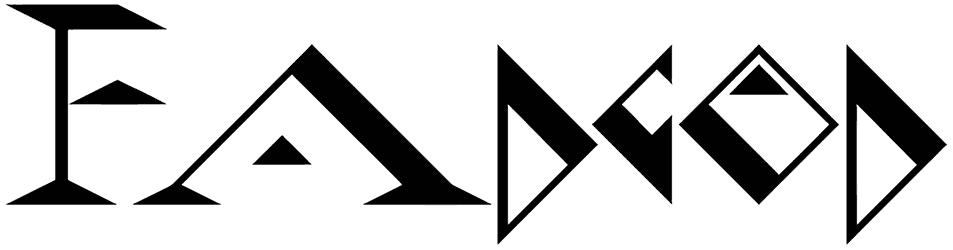
Fadgod Font
It is never too late to choose a magical alien font such as Fadgod, which has a sophisticated flow and elaborate texture. If creating a sense of exotic, mysterious, fierce, or dynamic is your main priority in designing graphic content, this all-caps triangle font can be ideal and help you achieve your goal.
Due to its unique style, it can be included in a wide set of innovative ideas ranging from web page templates, book covers, to brochures.
Fadgod is a striking, geometric typeface. Alternate caps and lowercase for a unique appearance that stands out from the rest. Most Latin-based European writing systems are supported, including the following languages. Afaan Oromo, Afar, Afrikaans, Albanian, Alsatian, Aromanian, Aymara, Bashkir (Latin), Basque, Belarusian (Latin), Bemba, Bikol, Bosnian, Breton, Cape Verdean, Creole, Catalan, Cebuano, Chamorro, Chavacano, Chichewa, Crimean Tatar (Latin), Croatian, Czech, Danish, Dawan, Dholuo, Dutch, English, Estonian, Faroese, Fijian, Filipino, Finnish, French, Frisian, Friulian, Gagauz (Latin), Galician, Ganda, Genoese, German, Greenlandic, Guadeloupean Creole, Haitian Creole, Hawaiian, Hiligaynon, Hungarian, Icelandic, Ilocano, Indonesian, Irish, Italian, Jamaican, Kaqchikel, Karakalpak (Latin), Kashubian, Kikongo, Kinyarwanda, Kirundi, Kurdish (Latin), Latvian, Lithuanian, Lombard, Low Saxon, Luxembourgish, Maasai, Makhuwa, Malay, Maltese, Māori, Moldovan, Montenegrin, Ndebele, Neapolitan, Norwegian, Novial, Occitan, Ossetian (Latin), Papiamento, Piedmontese, Polish, Portuguese, Quechua, Rarotongan, Romanian, Romansh, Sami, Sango, Saramaccan, Sardinian, Scottish Gaelic, Serbian (Latin), Shona, Sicilian, Silesian, Slovak, Slovenian, Somali, Sorbian, Sotho, Spanish, Swahili, Swazi, Swedish, Tagalog, Tahitian, Tetum, Tongan, Tshiluba, Tsonga, Tswana, Tumbuka, Turkish, Turkmen (Latin), Tuvaluan, Uzbek (Latin), Venetian, Vepsian, Võro, Walloon, Waray-Waray, Wayuu, Welsh, Wolof, Xhosa, Yapese, Zapotec Zulu and Zuni.